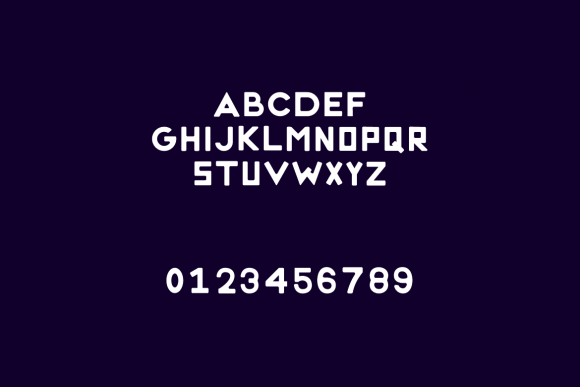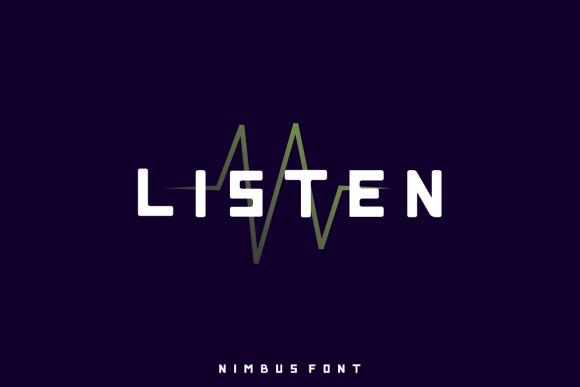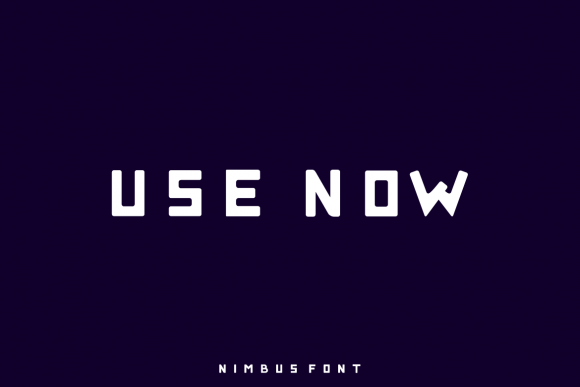
Introduction to Nimbus Font
Nimbus is a cool, thick lettered display font.
It will look stunning on any poster flyer or print Use this font for your designs and explore its endless possibilities.